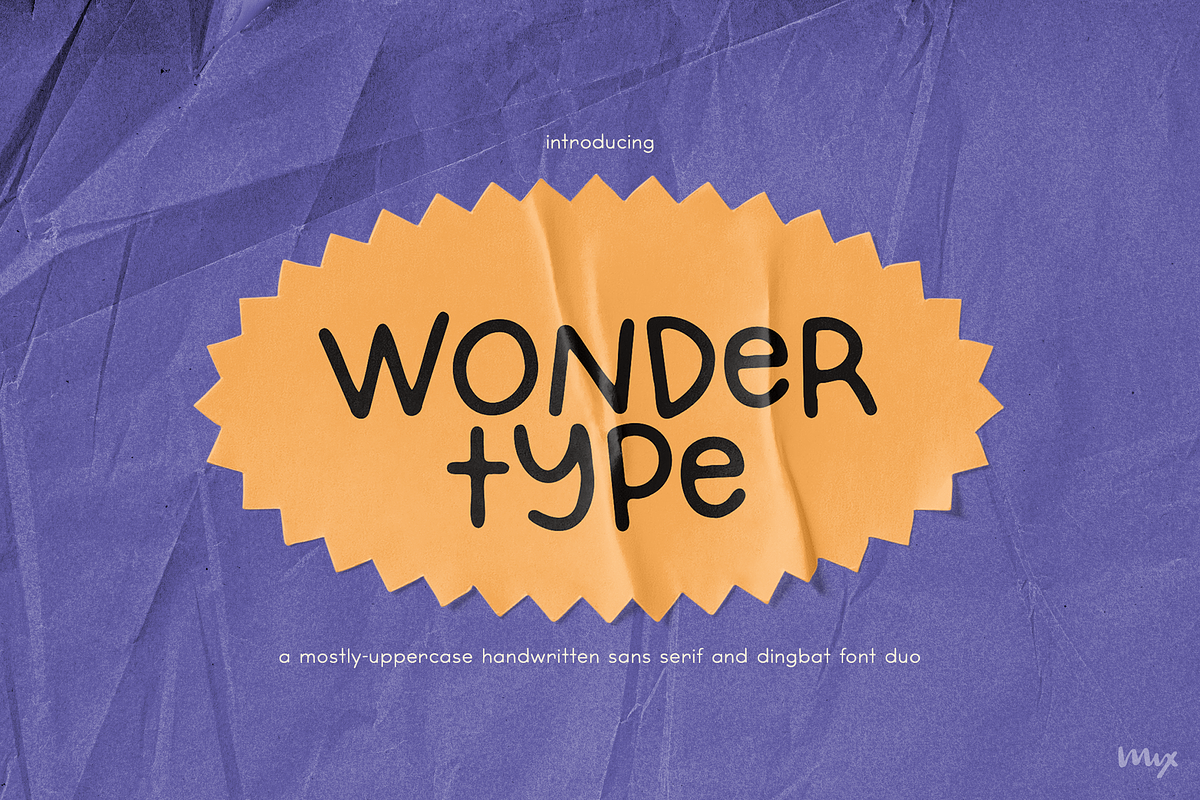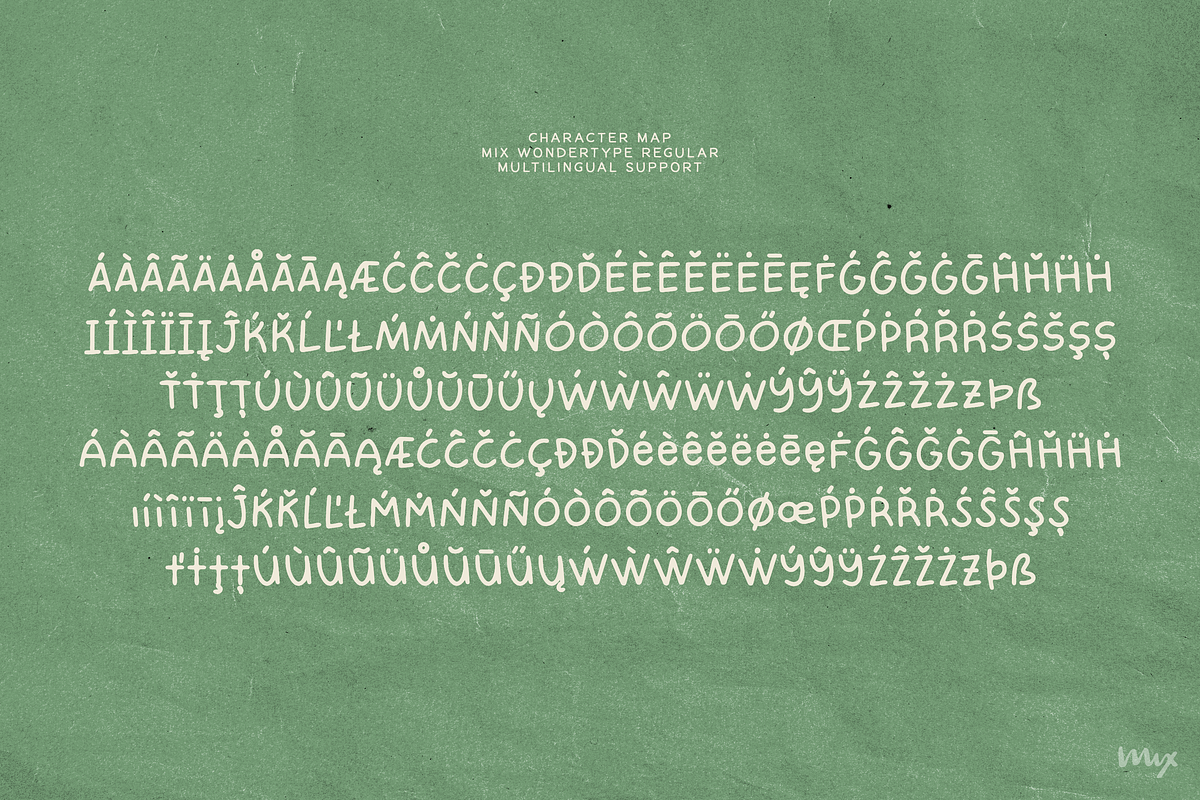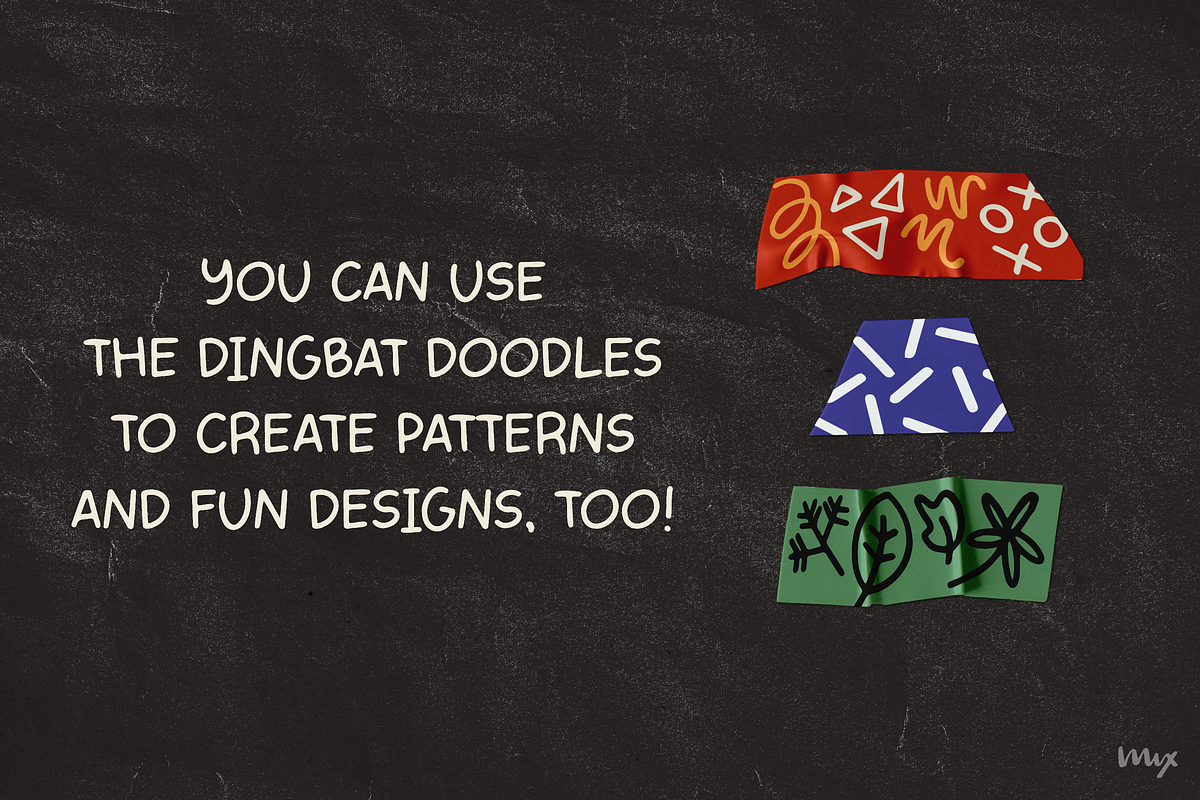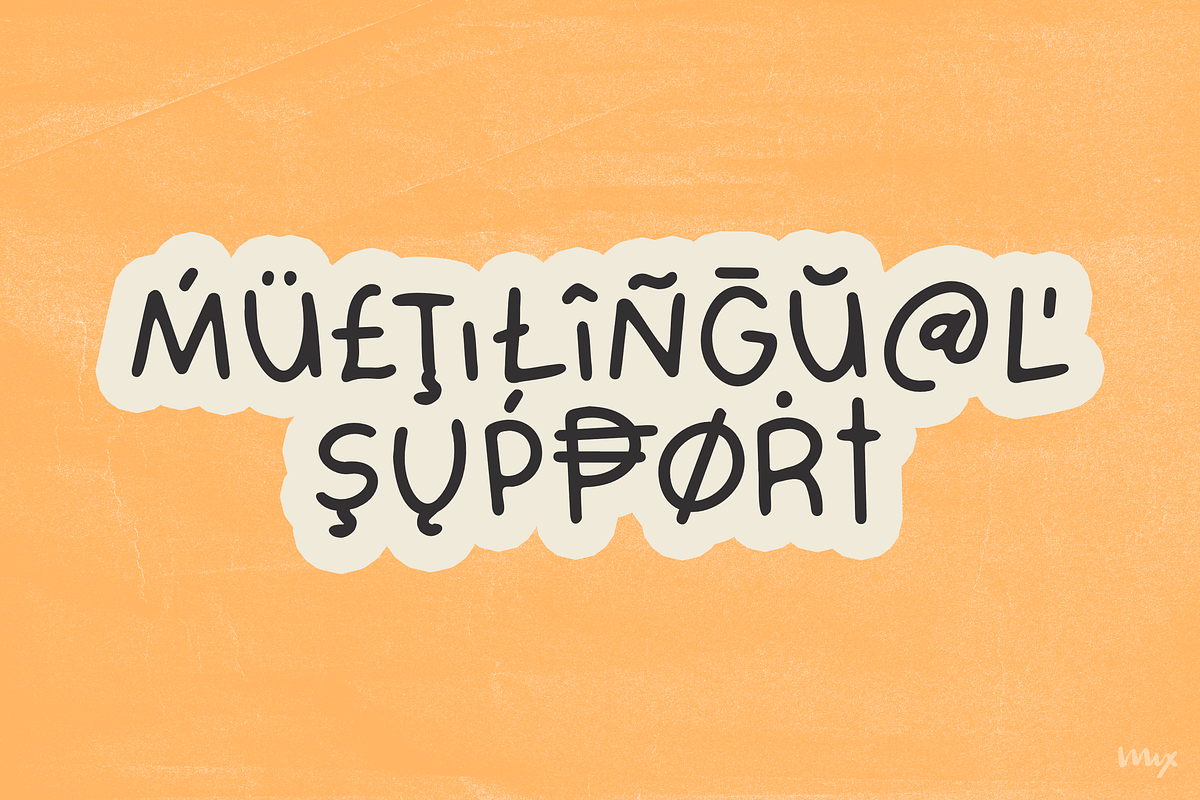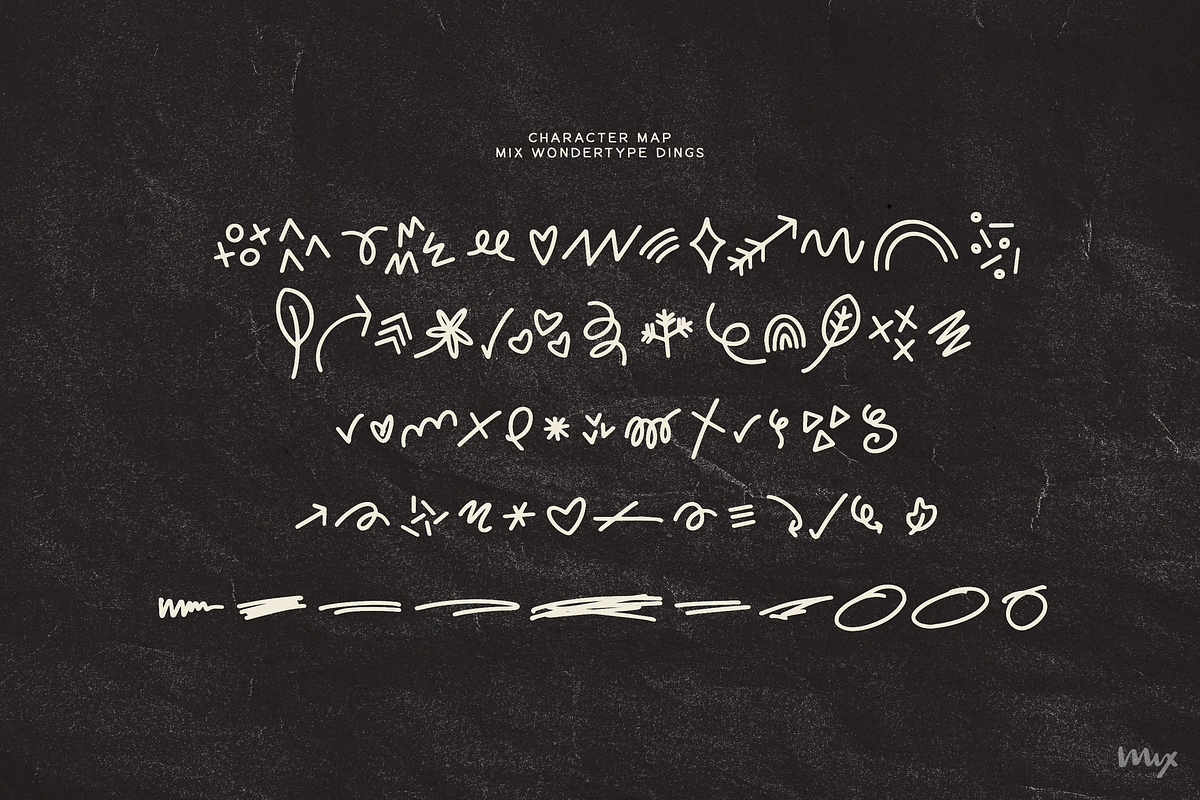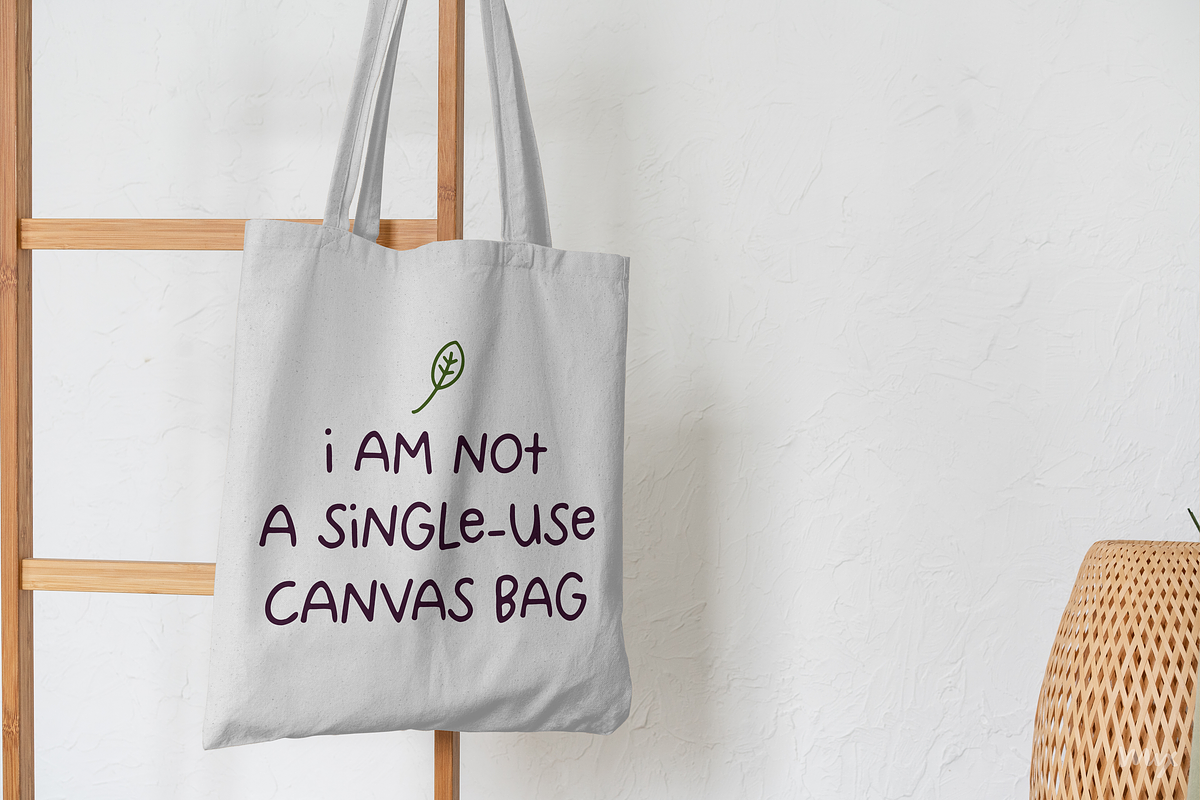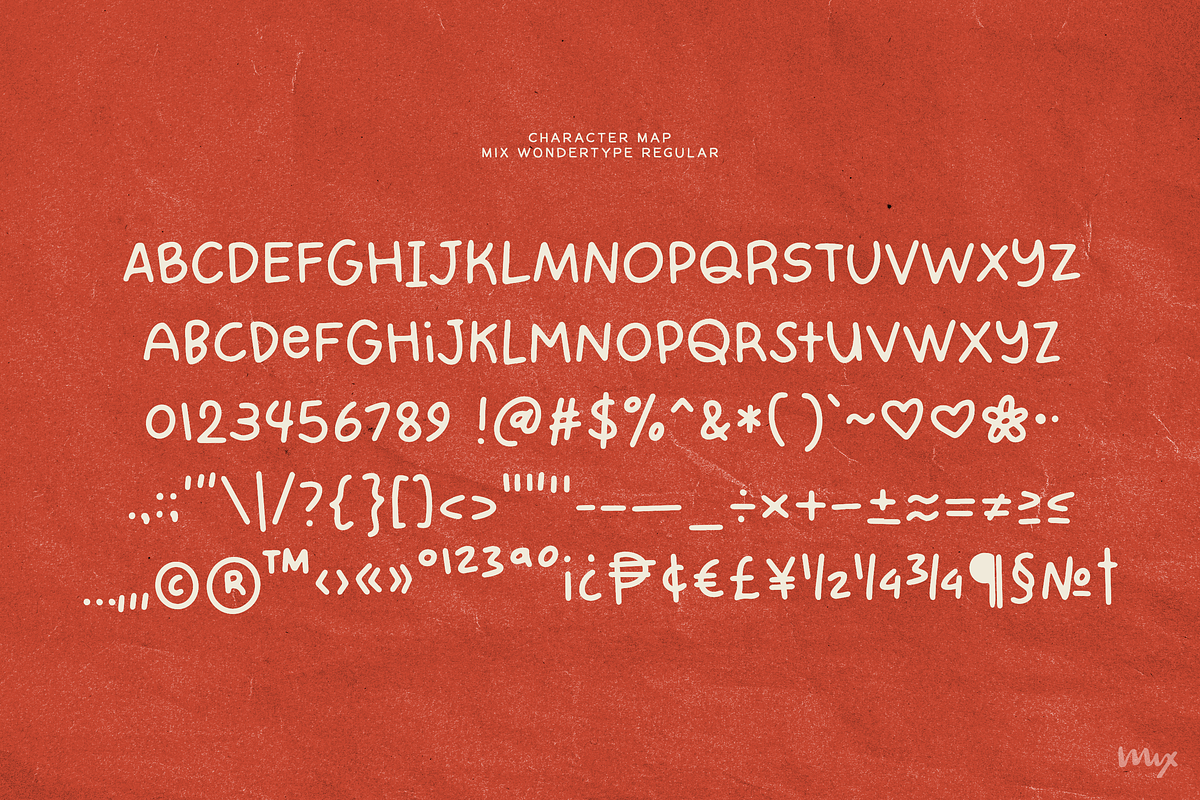
Wondertype — A Font Duo
Inject some serious whimsy and charm into your designs with WONDERTYPE, a playfully cute display font duo that's bound to bring a smile to your face. Whether you're crafting social media posts, creating posters, or designing websites, WONDERTYPE adds a playful touch to any project. Plus, with an accompanying whimsical dingbat set filled with doodles galore, WONDERTYPE ensures your creations stand out from the crowd. Don't miss out on this fun and versatile font duo – make WONDERTYPE a part of your font collection today!